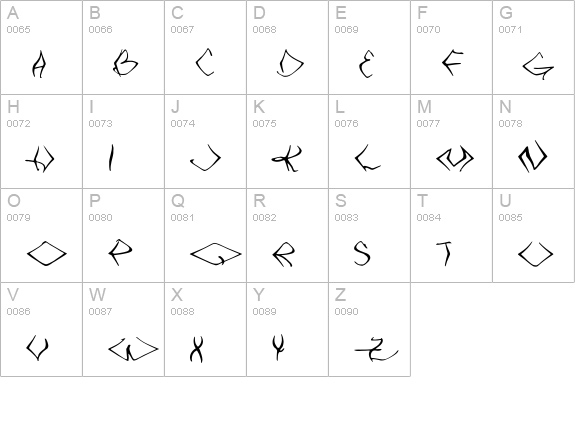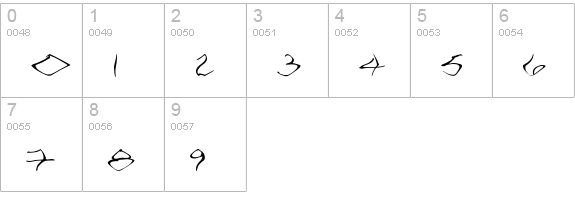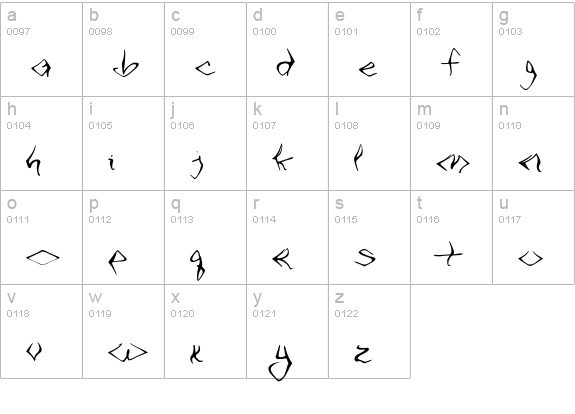
VTC SeeJoBend Regular Font Details
VTC SeeJoBend Regular is the standard, neutral variant in the VTC typeface family \xE2\x80\x94 well suited to general body text, paragraphs, and standard typographic work.
VTC SeeJoBend Regular font is a captivating and versatile typeface that effortlessly blends modernity with a touch of whimsy. Its unique design features graceful curves and playful letterforms, making it perfect for a wide range of creative projects. This font is freely available to download at FontsMarket.com, making it easily accessible to designers, artists, and enthusiasts alike. With its generous availability, you can incorporate VTC SeeJoBend Regular into your designs without any limitations or restrictions. Whether you are designing a logo, crafting a poster, or creating eye-catching social media graphics, this font will add a delightful twist to your work. Its elegant yet playful nature will capture attention and provide a distinctive visual identity to your projects. VTC SeeJoBend Regular font is carefully crafted to ensure legibility and readability, even at smaller sizes. Its smooth curves and well-balanced proportions ensure that each letter flows seamlessly, creating a harmonious and visually pleasing text. With its wide range of glyph options, including uppercase and lowercase letters, numbers, punctuation marks, and special characters, VTC SeeJoBend Regular offers endless possibilities for your designs. You can easily mix and match different styles to create unique typographic compositions that truly stand out. Download VTC SeeJoBend Regular font for free at FontsMarket.com and unleash your creativity. Whether you are a professional designer or a passionate hobbyist, this font will be a valuable addition to your typographic toolkit. Its versatility and charm will elevate your designs and leave a lasting impression on your audience.